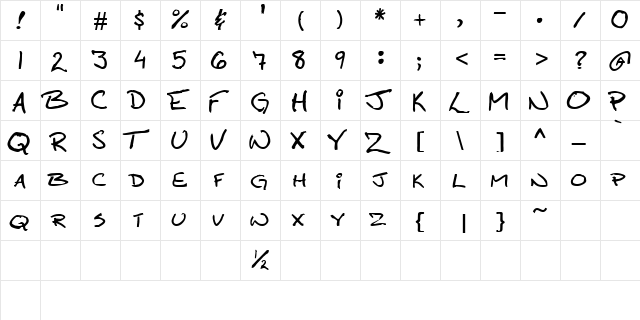
Callahan Normal
Design Context for Callahan Typeface
Callahan is a composed and adaptable typeface that performs quietly and consistently across a wide range of design contexts.